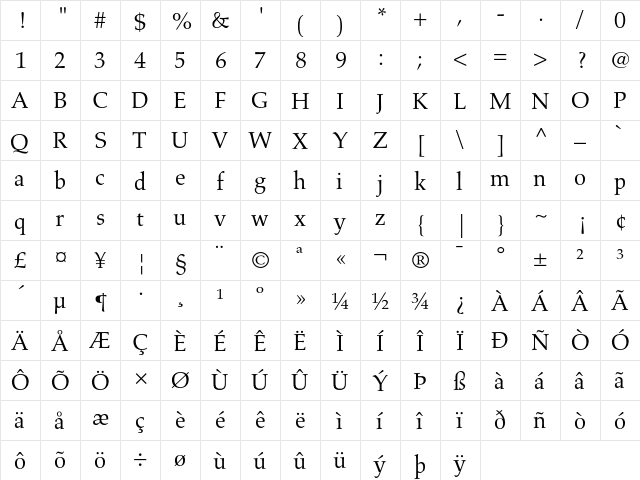
Aldus Roman
Design Context for Aldus Typeface
Aldus is a composed and adaptable typeface that performs quietly and consistently across a wide range of design contexts.